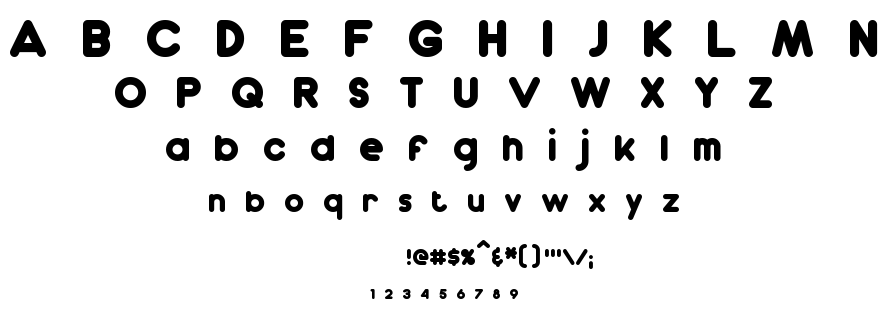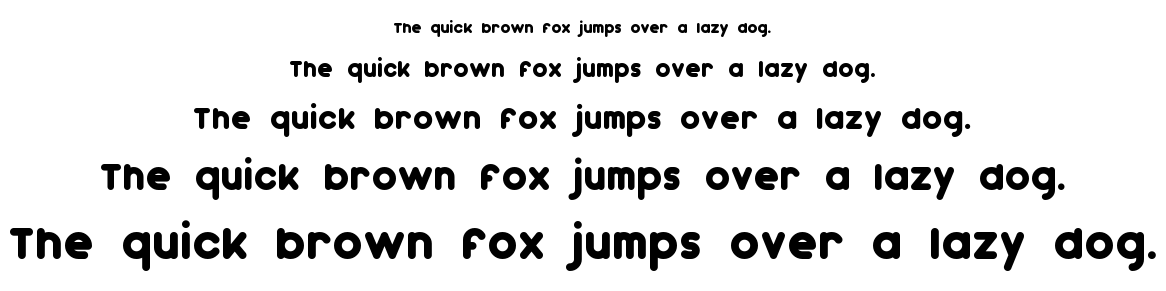
A bold, smooth font based loosely on the popular logo of “Dunkin’ Donuts’. Includes full alphabet, lower case, accents, and Euro.
Upated: includes trademark and copyright marks as well as some other assorted symbols.